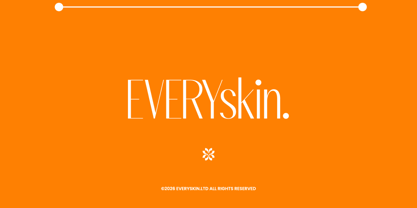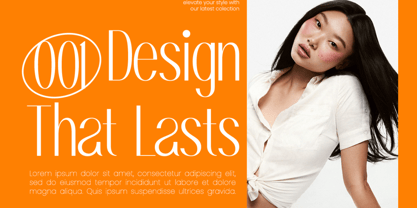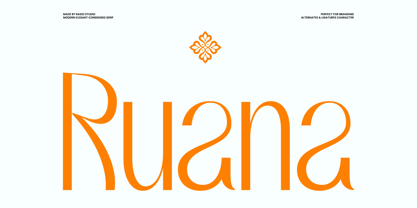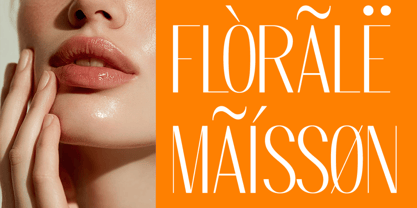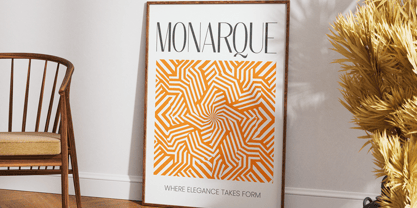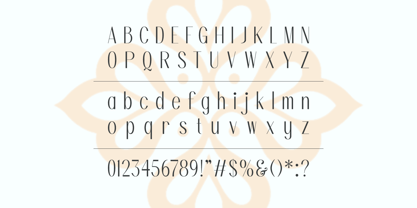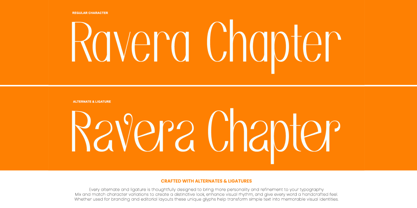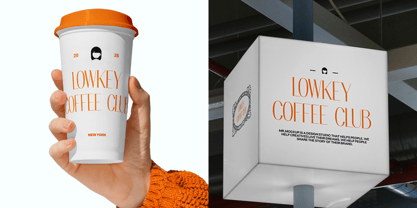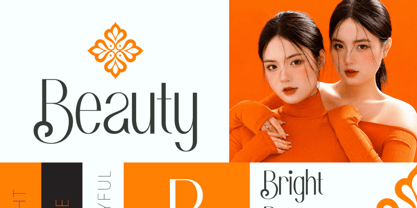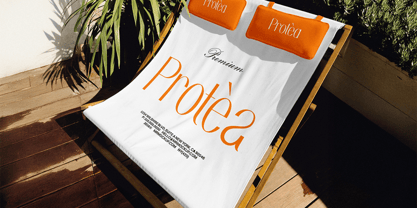
Ruana
Ruana is an elegant condensed serif typeface with a refined editorial character, narrow proportions, high-contrast strokes, and graceful curves. Its tall letterforms create a sophisticated vertical rhythm while maintaining a distinctive fashion-forward appearance, giving layouts a polished and expressive typographic presence. The typeface includes uppercase and lowercase characters, numerals, punctuation, symbols, stylistic alternates, ligatures, and decorative elements. The condensed structure allows longer words and brand names to occupy less horizontal space while preserving a luxurious visual impact.
Relevance and Use Case is perfect for fashion branding, beauty identities, editorial covers, luxury packaging, magazine headlines, boutique logos, invitations, product labels, posters, signage, and sophisticated social media graphics. The alternate characters and ligatures provide additional flexibility for creating distinctive wordmarks and personalized typographic compositions.